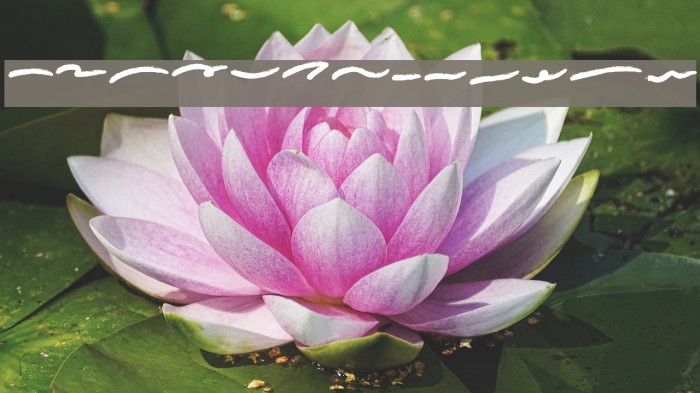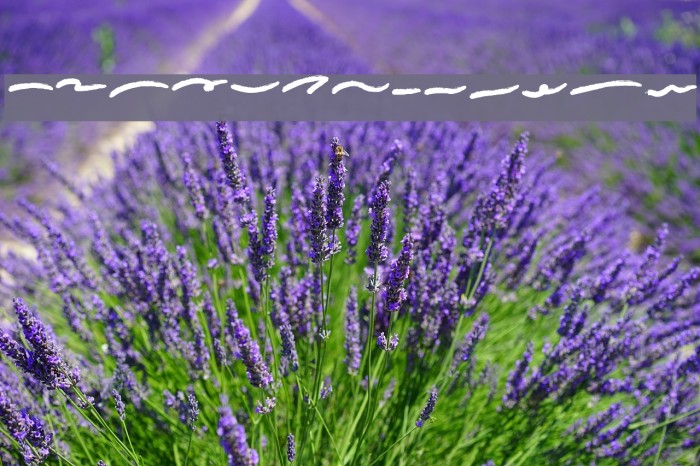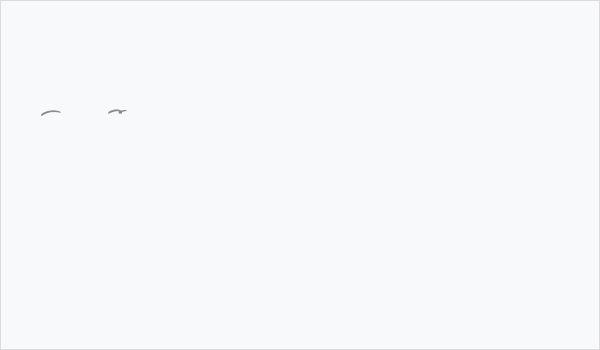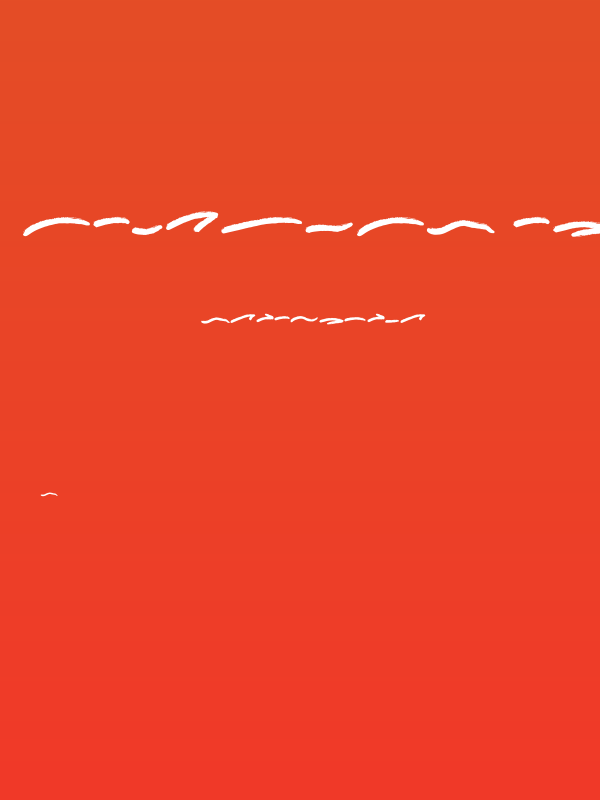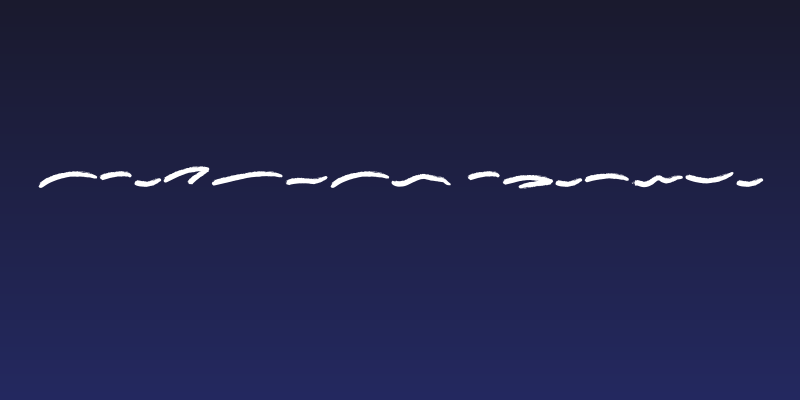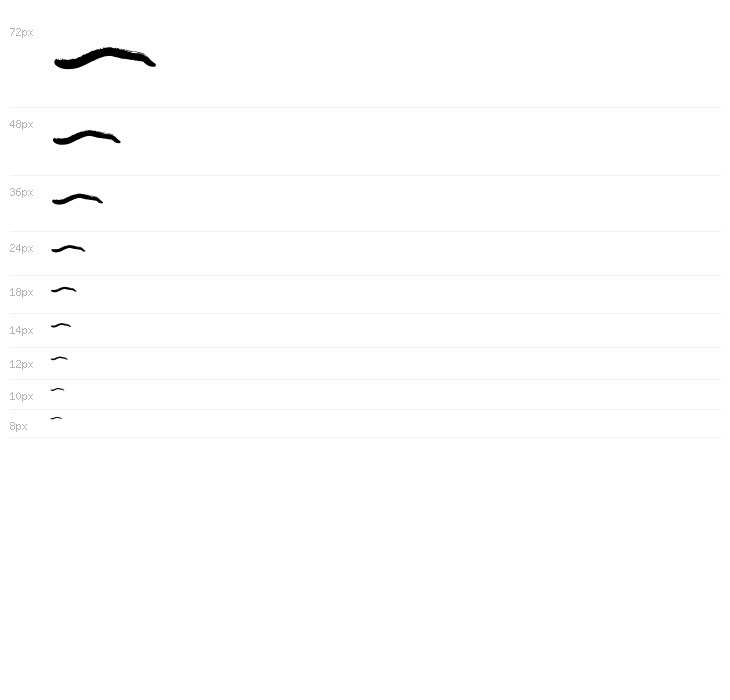
conflict ornamen Font
conflict ornamen Description
A decorative, abstract ornamental design composed of fluid, hand-drawn strokes that resemble calligraphic flourishes or dividers rather than readable letterforms or numerals.
| Overall Style | Decorative, Hand-drawn, Ornamental |
| Use Case | Ornamental dividers, decorative elements |
| Proposed Projects | Borders, dividers, invitations, decorative accents, scrapbooking, certificates. |